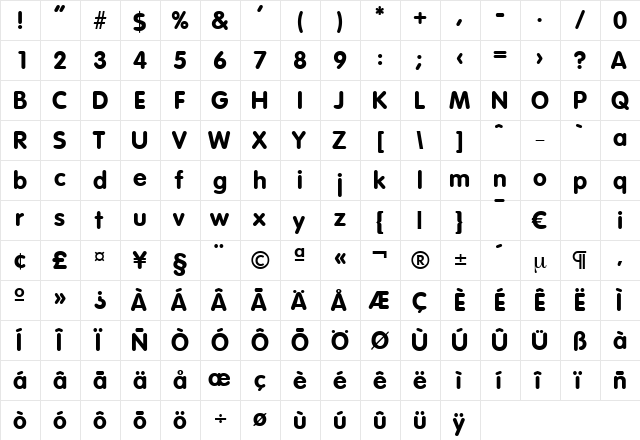
Volkswagen-Bold Regular
Design Context for Volkswagen-Bold Typeface
Volkswagen-Bold offers clean, dependable letterforms without strong stylistic allegiance, making it a practical choice for designers who need flexibility. Its bold stroke weight gives it real presence on the page.
Pro Tip: Use Volkswagen-Bold in both headline and body roles to test its range before committing to a single application.